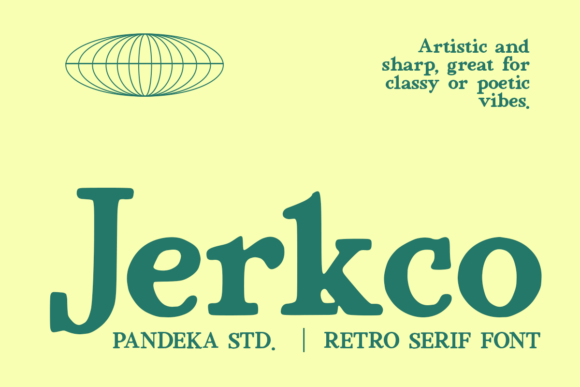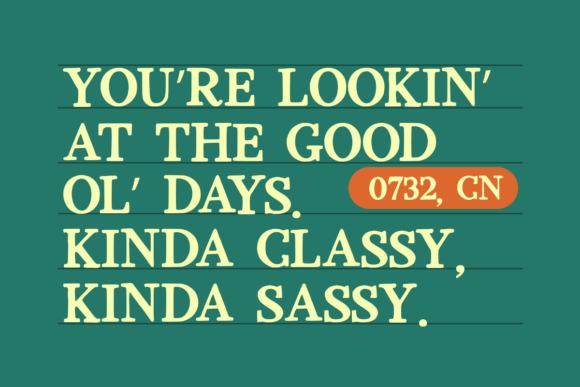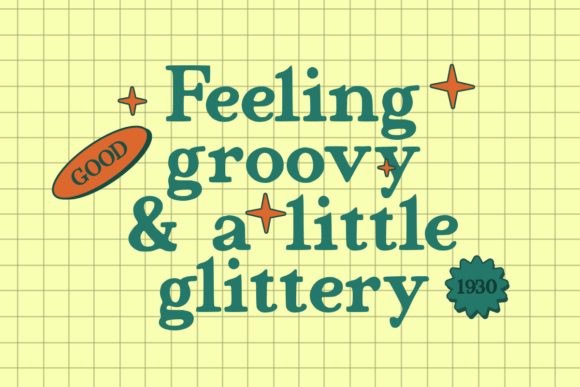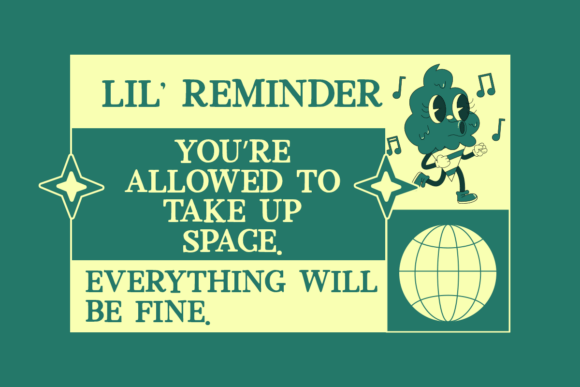
Jerkco Font: Bold Retro Serif for Playful Branding & Headlines
About the Jerkco Font
Experience the unique personality of Jerkco Font, a font designed for impact. Jerkco is a retro serif font with bold characters and a splash of playful attitude. Inspired by vintage aesthetics and nostalgic typography, it’s perfect for catchy headlines, lifestyle designs, branding, and fun packaging. With its sharp edges and smooth curves, Jerkco gives your message a classic yet quirky vibe. The font includes uppercase, lowercase, numbers, symbols, and basic punctuation—ideal for designs that need flair without complexity.
Jerkco thrives in headline applications, short impactful statements, and logo designs. Its playful boldness works exceptionally well for branding projects targeting younger demographics or those with a vintage-inspired aesthetic. Consider it for posters, packaging for quirky products, or even short social media captions. However, its retro style and bold weight make it less suitable for body text or UI elements requiring high readability. Extended use can strain the eye.
Pairing Jerkco effectively requires a complementary typeface to balance its strong personality. A clean sans-serif like Open Sans or Lato offers excellent contrast, providing readability for supporting text. Alternatively, a more delicate script font can add a touch of elegance without overwhelming Jerkco’s character, although this should be used sparingly. Avoid pairing it with other similarly bold or heavily decorated typefaces.
Jerkco’s overall personality is best described as bold and playful, with a vintage twist. It’s ideal for brands that want to project a fun, slightly rebellious, and undeniably memorable image.